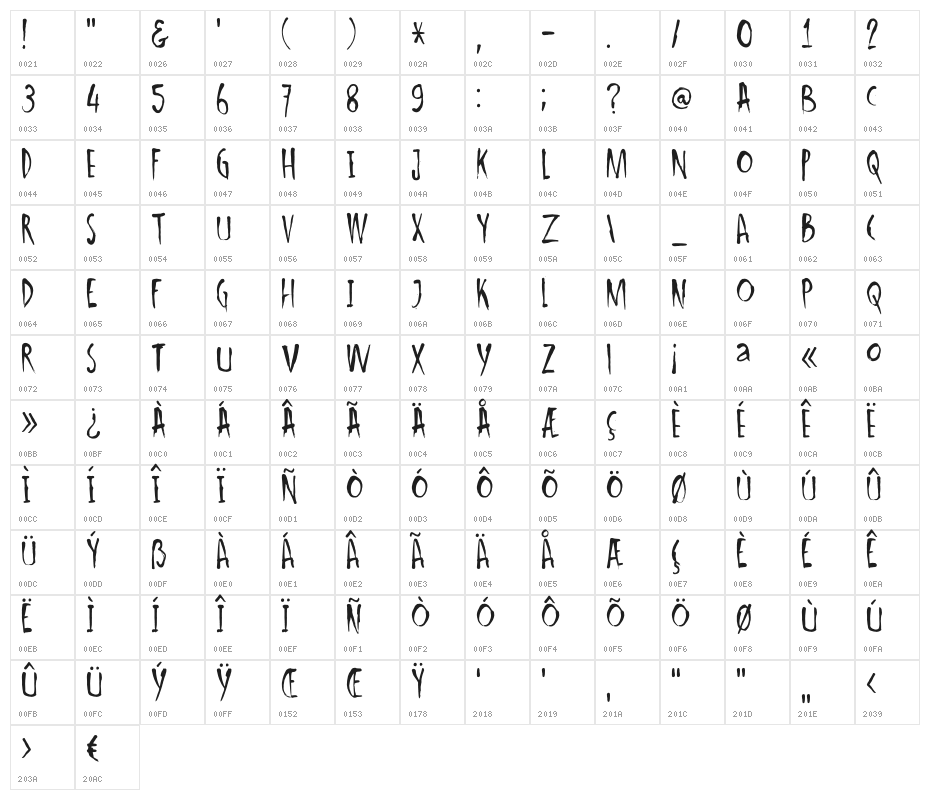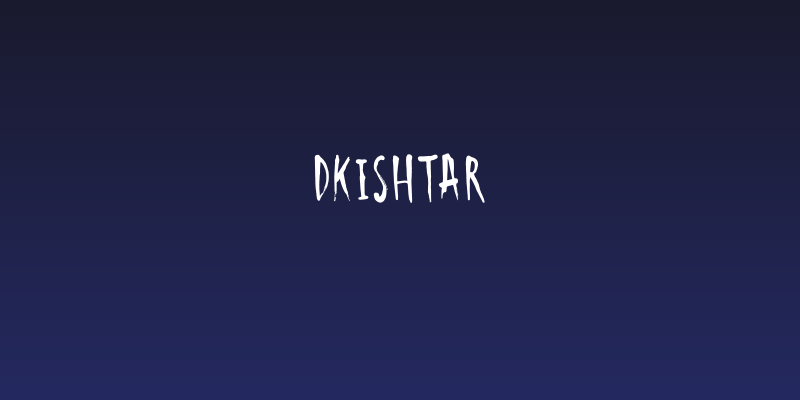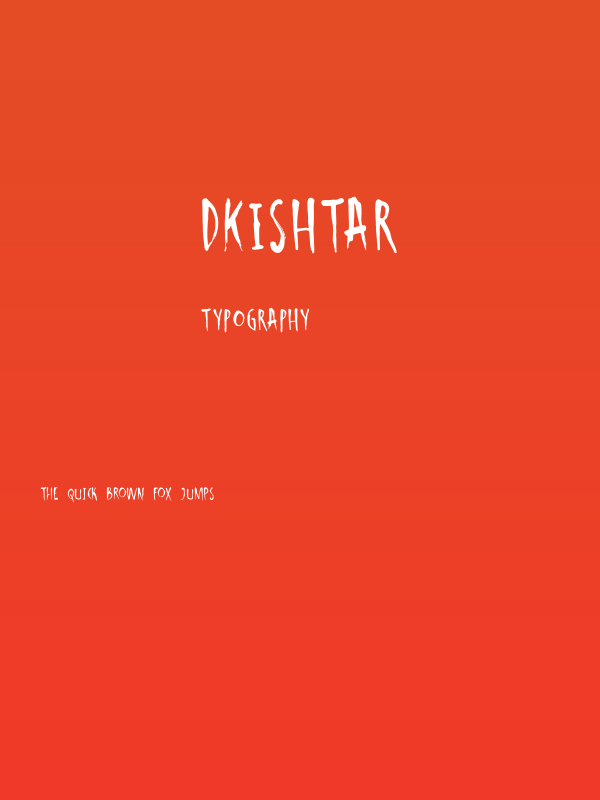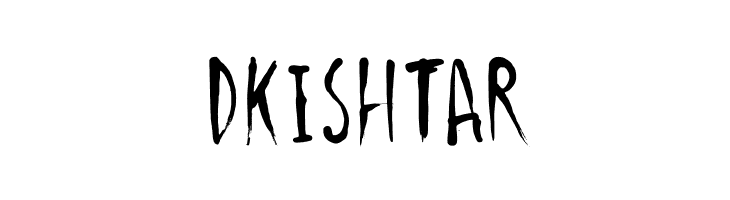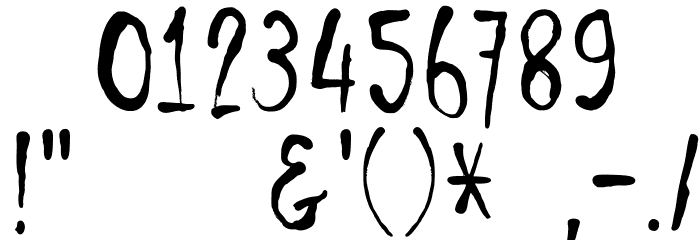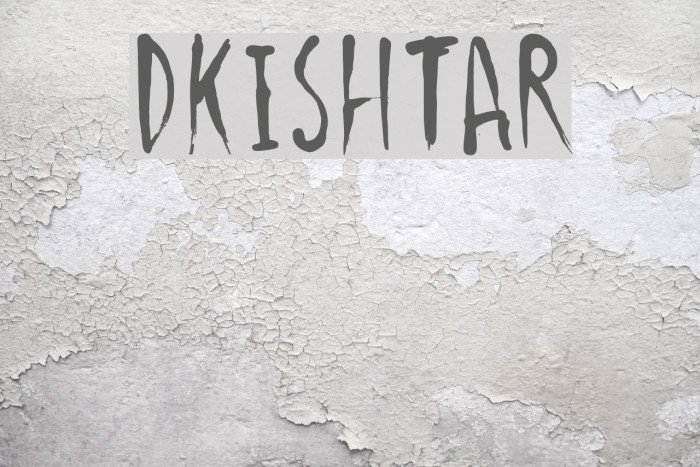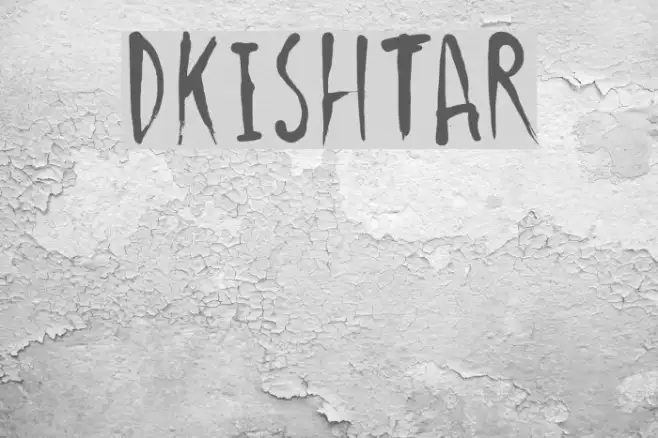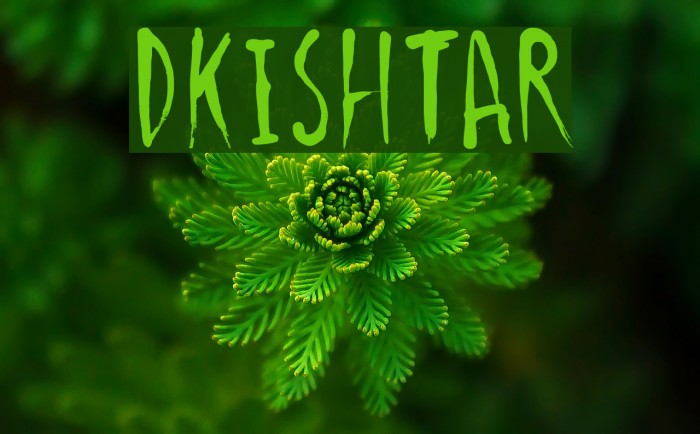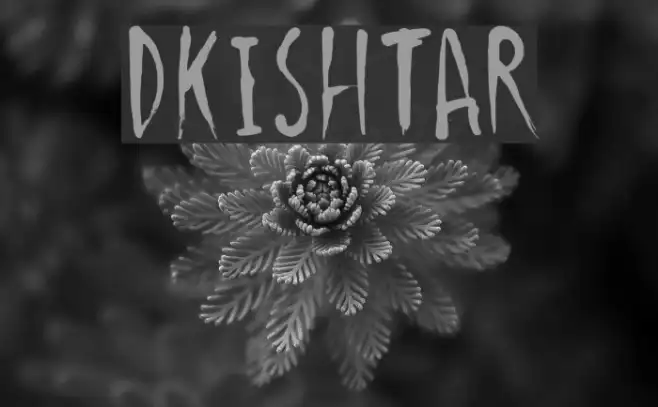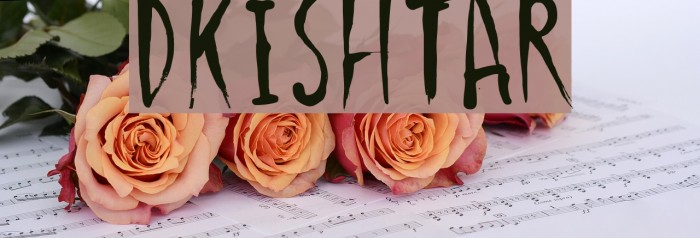
DKIshtar Font
DKIshtar Description
This font features a bold and expressive style with a hand-drawn appearance, characterized by irregular strokes and a slightly distressed look. The uppercase and lowercase letters maintain a consistent height, creating a cohesive and unified appearance. The numerals and special characters follow the same artistic style, adding to the overall aesthetic. The font's unique brush-like texture gives it an organic and dynamic feel, making it stand out in any design. Its playful yet edgy vibe is perfect for projects that require a touch of creativity and individuality.
| Proposed Projects | Ideal for posters, album covers, artistic branding, and creative advertising. |